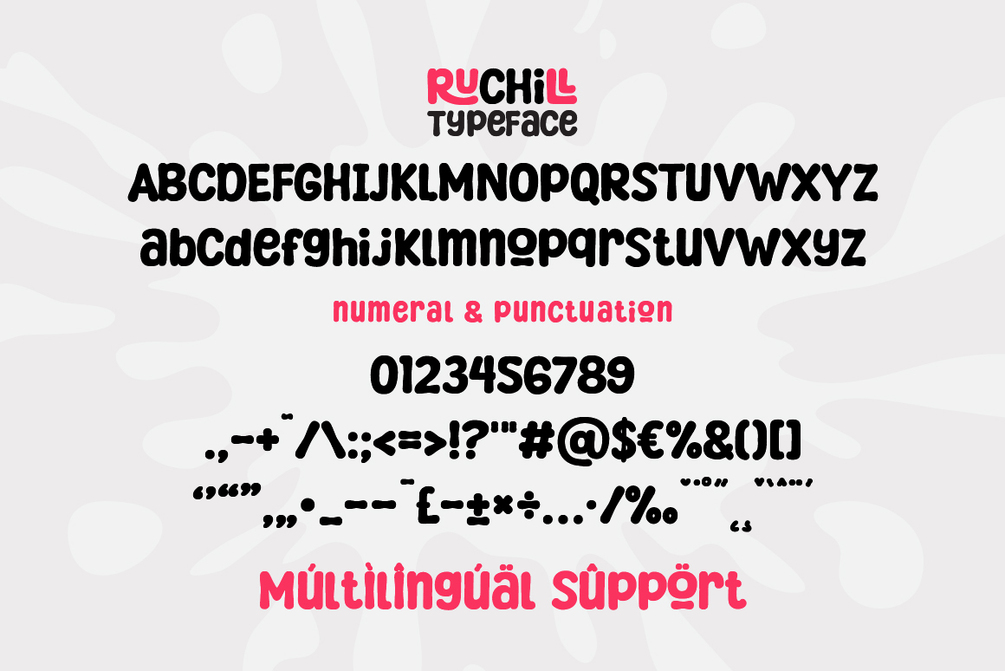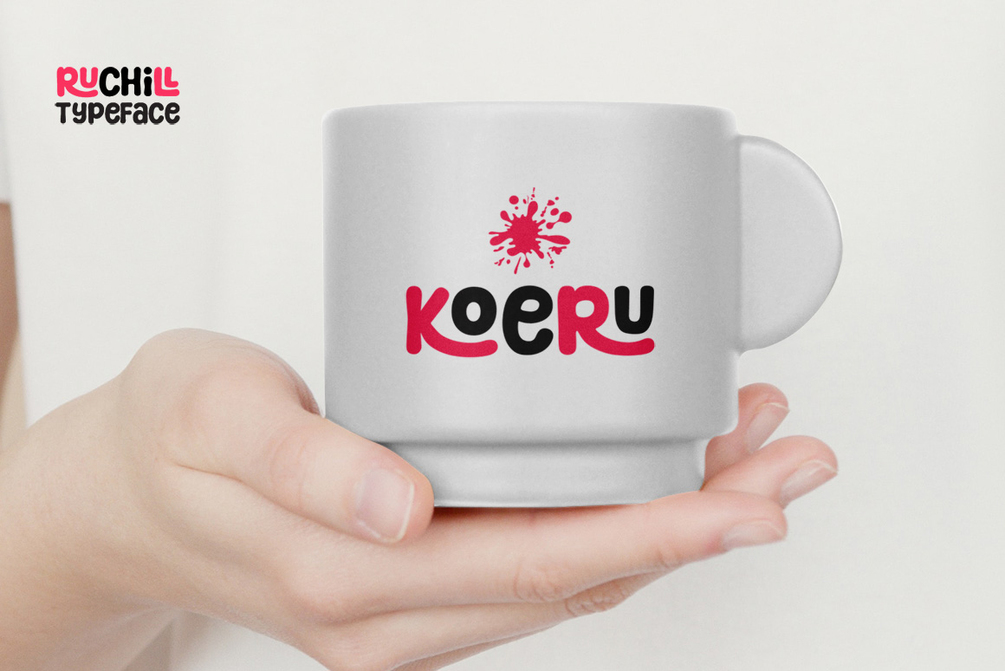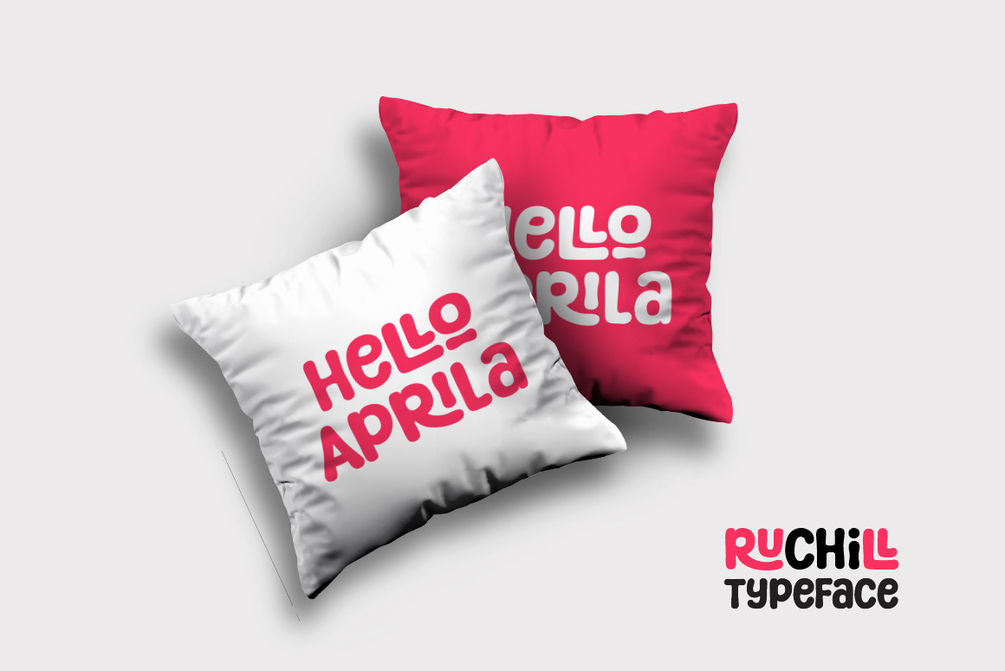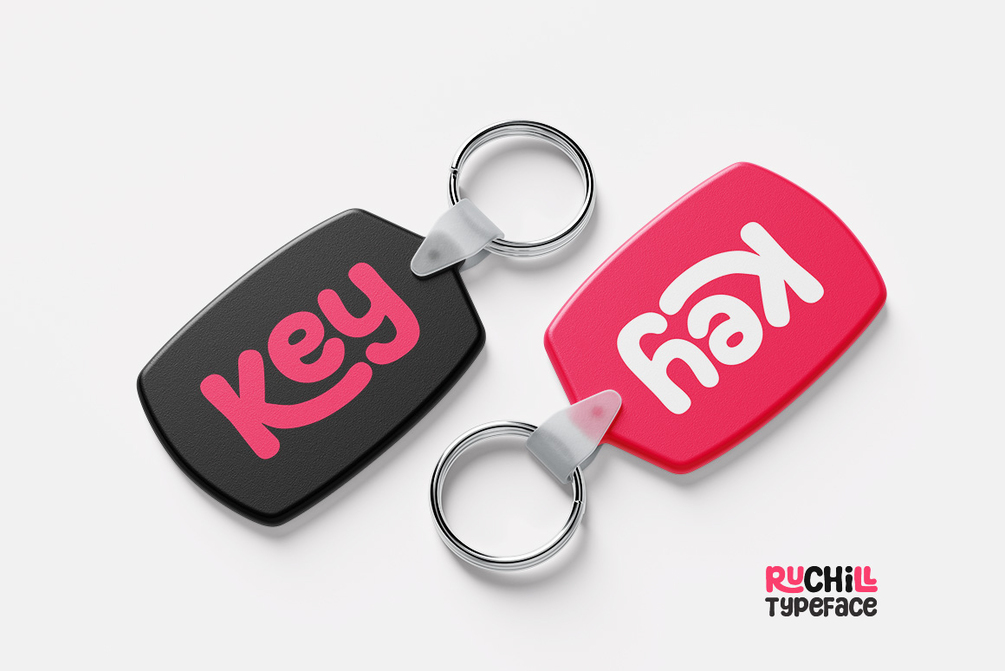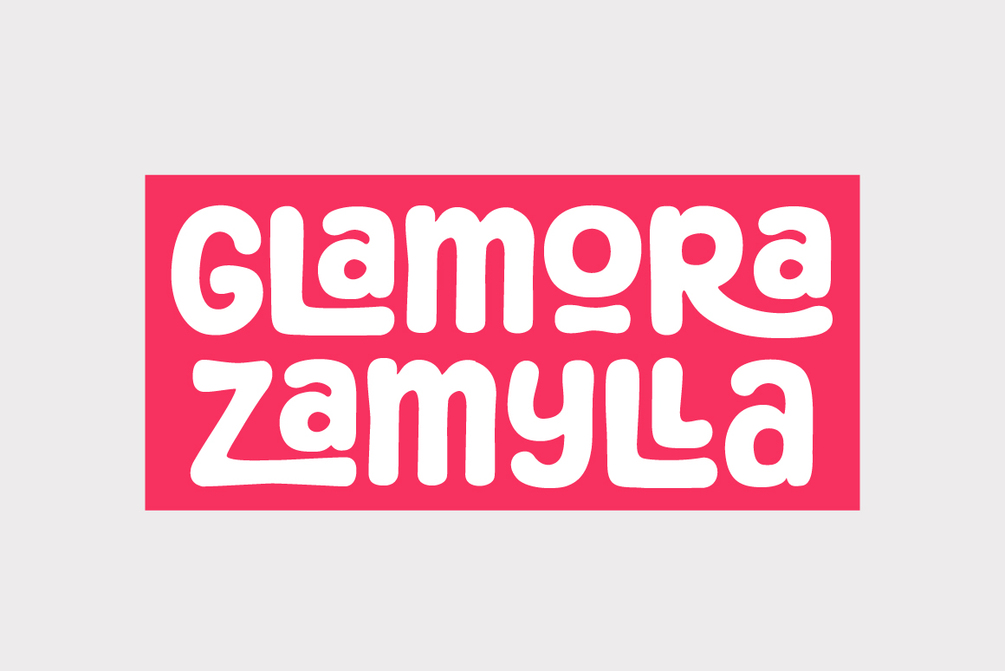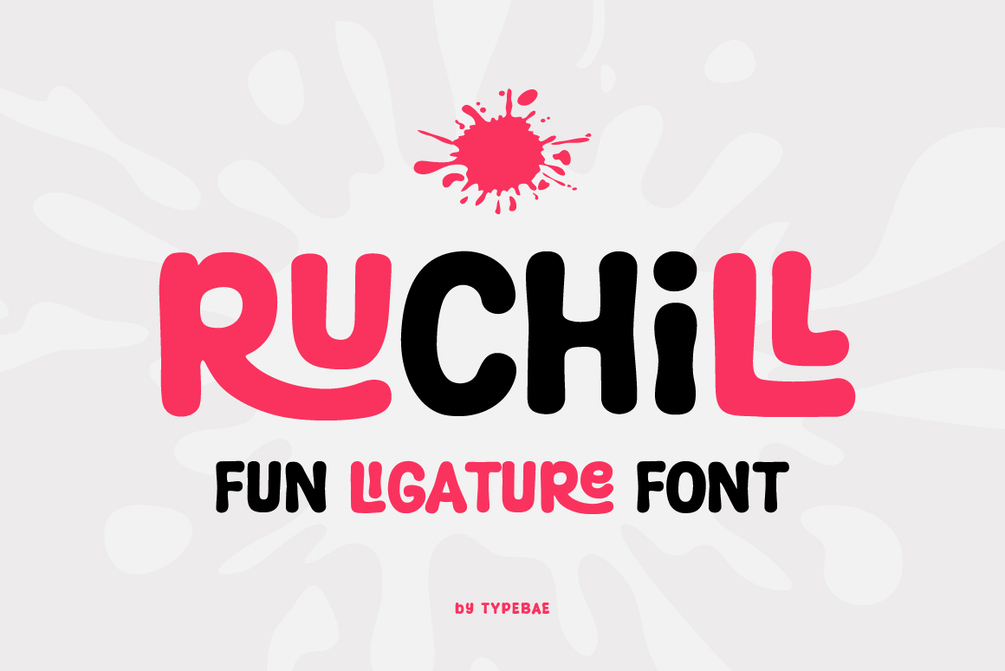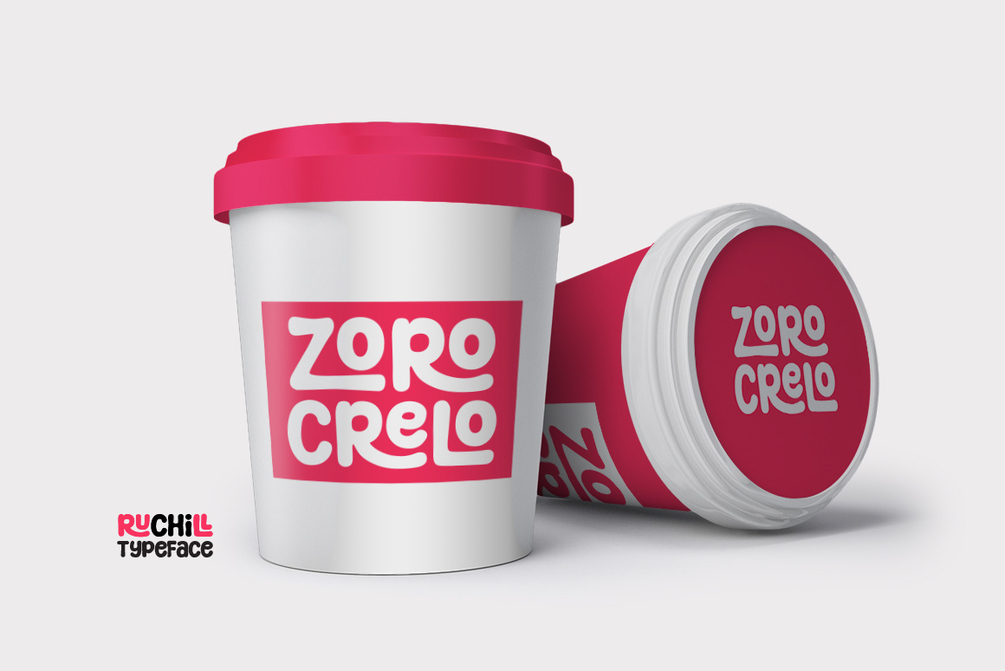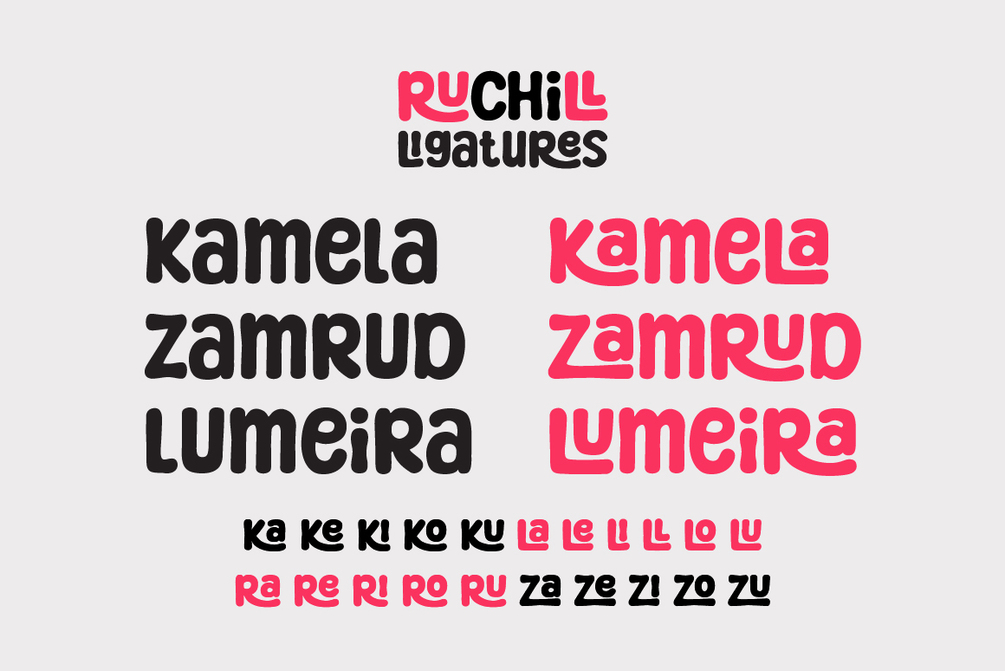
Ruchill
Ruchill is a playful display font packed with cool ligatures. Its unique ligatures add a fun, cheerful, and edgy vibe to any design.
This font is perfect for all kinds of creative projects, especially those with a cute and joyful style, like logos, t-shirts, crafts, posters, branding, stickers, sublimation, quotes, and so much more.
• Lowercase and Uppercase with ligatures
• Numeral and Punctuation
• Multilingual Accent